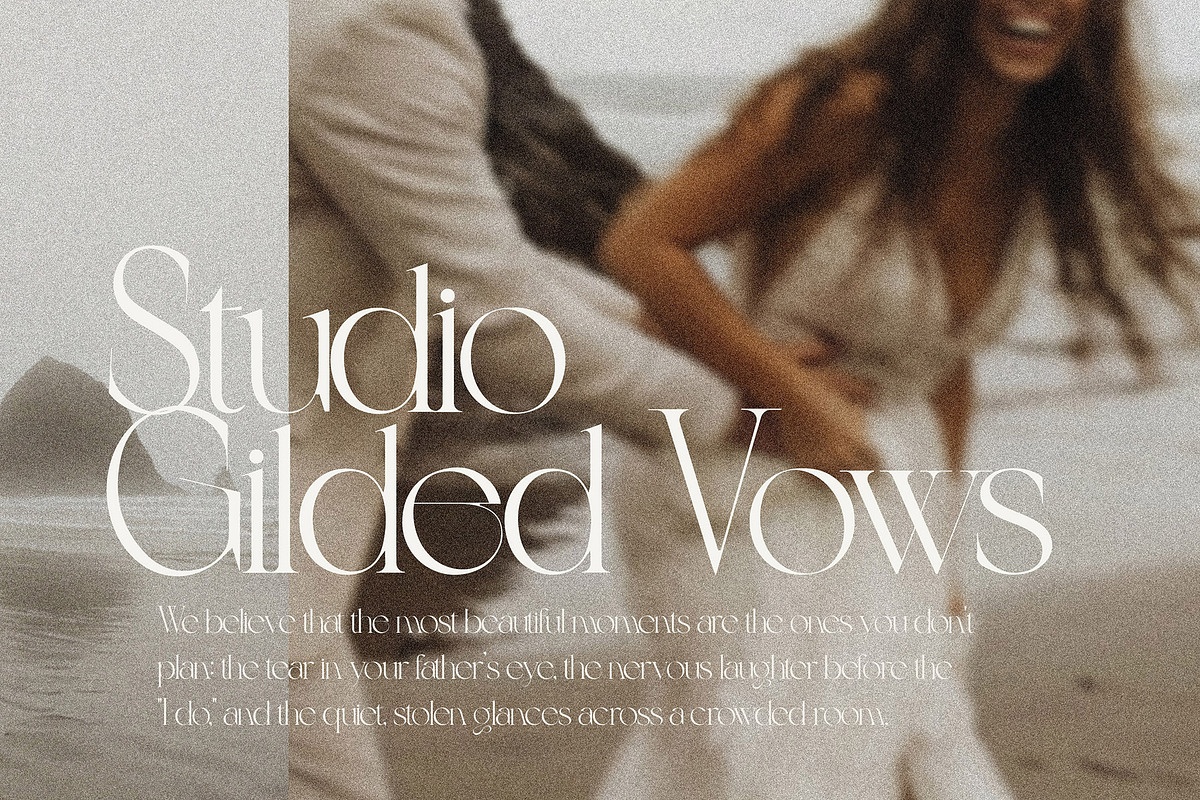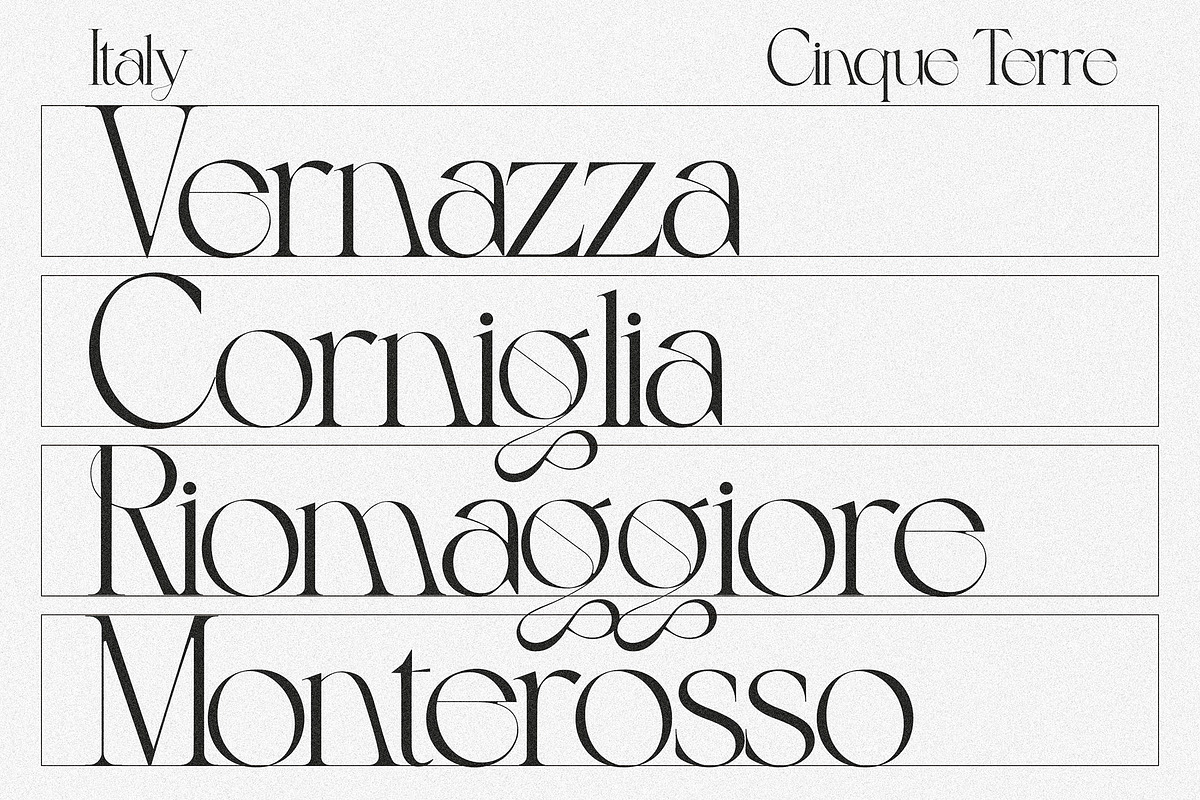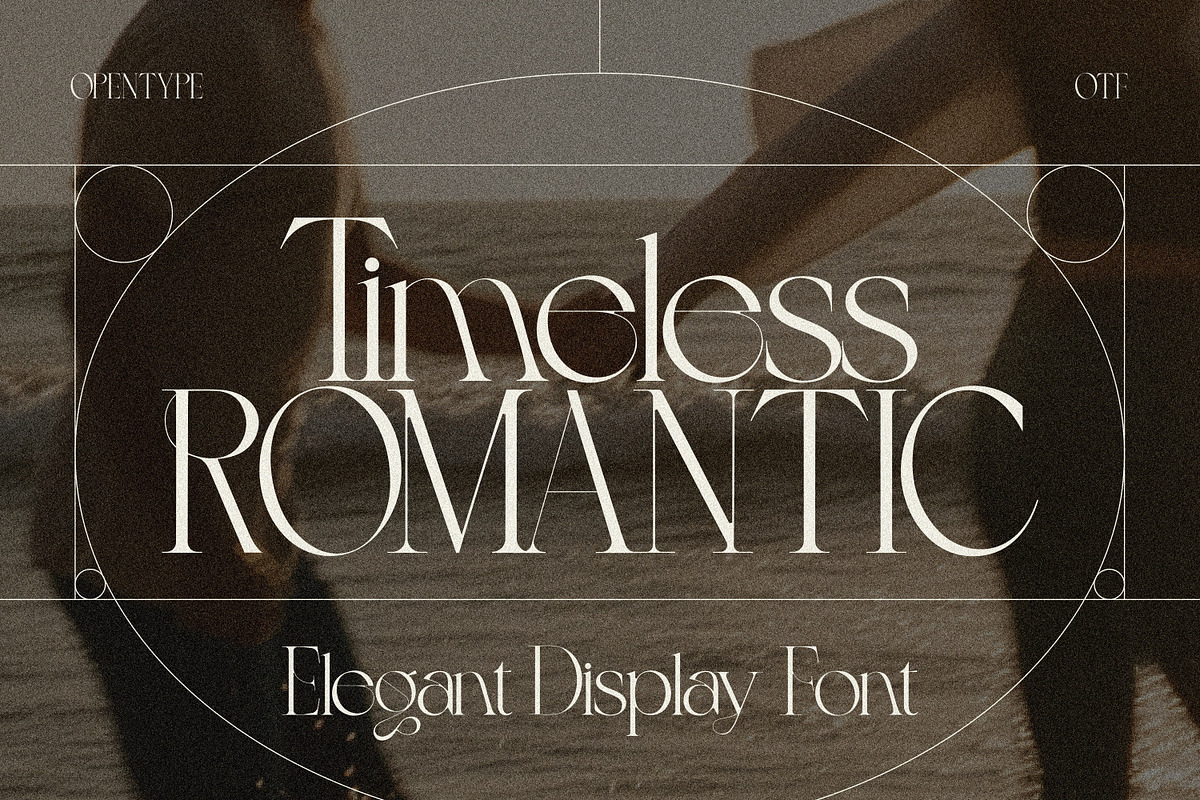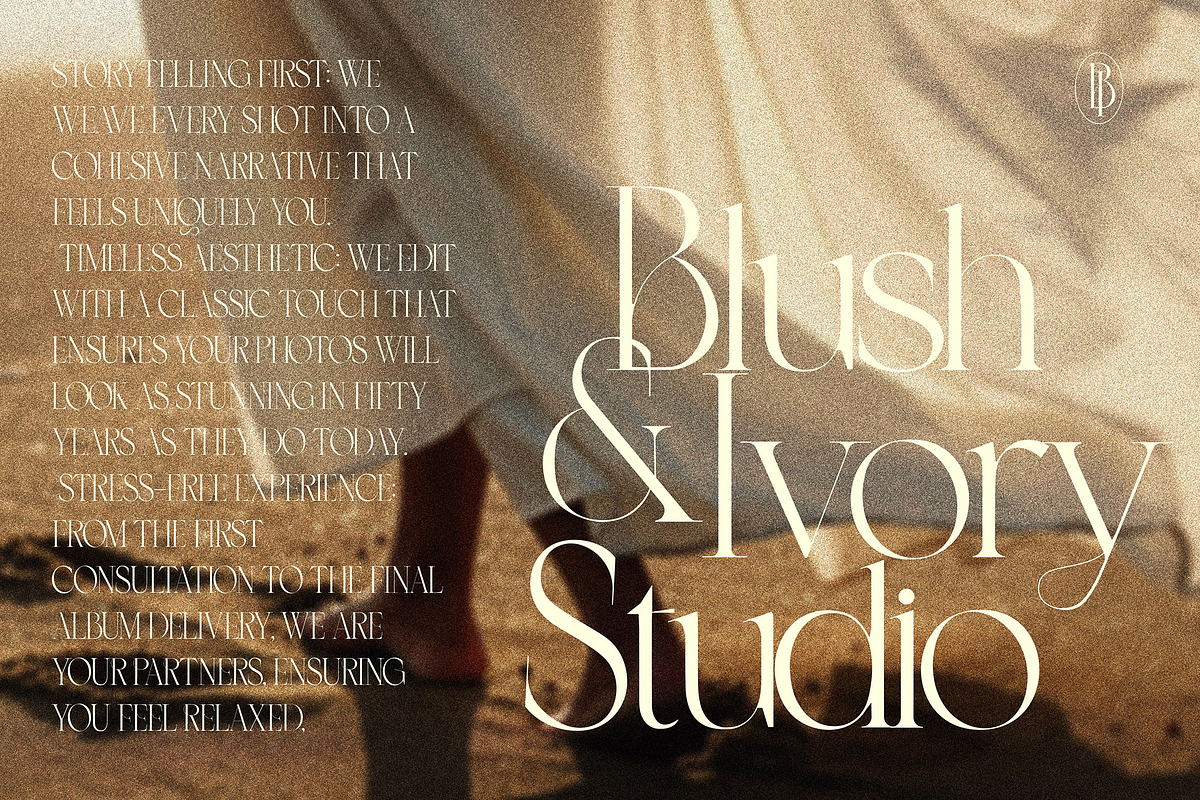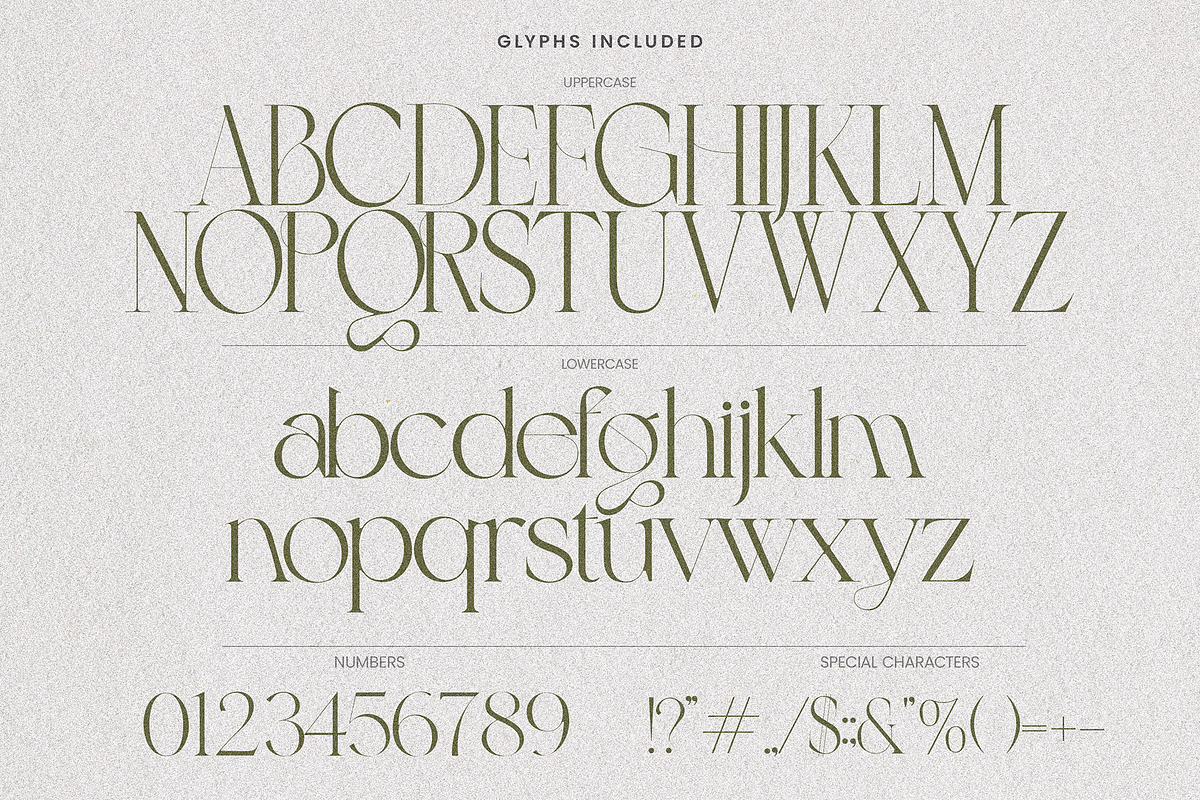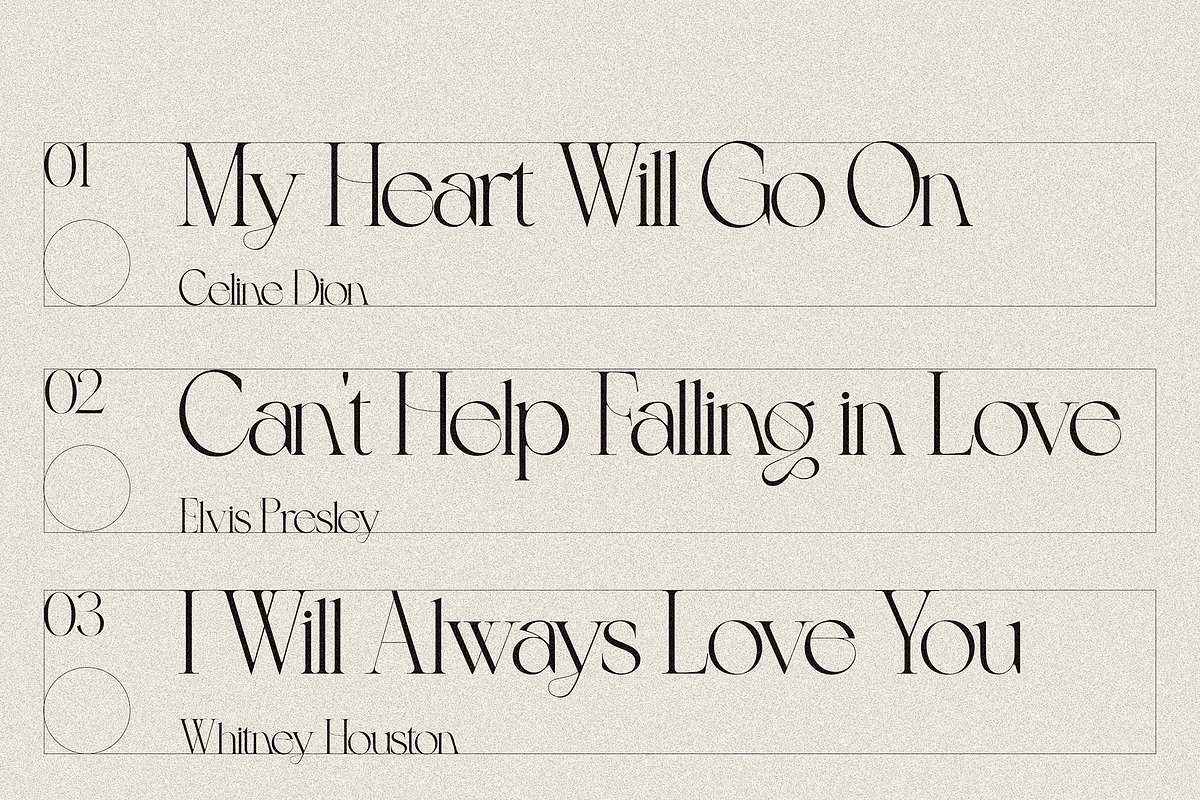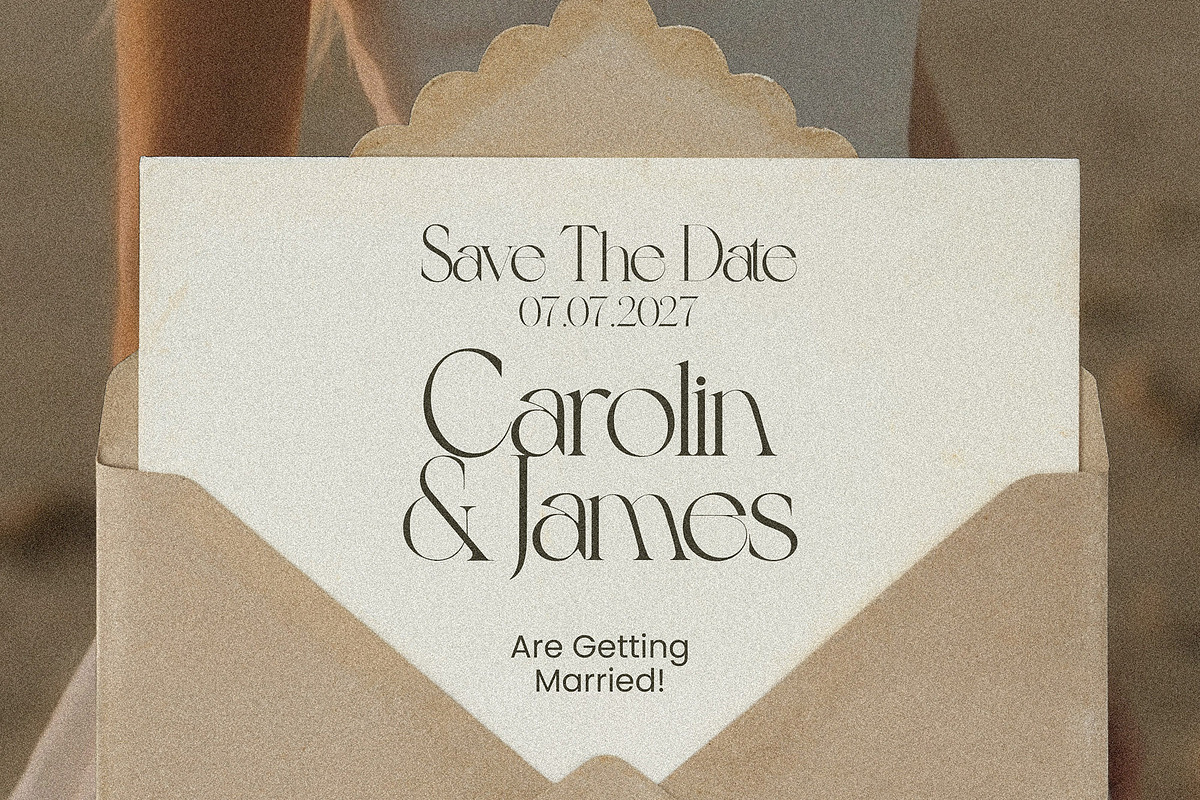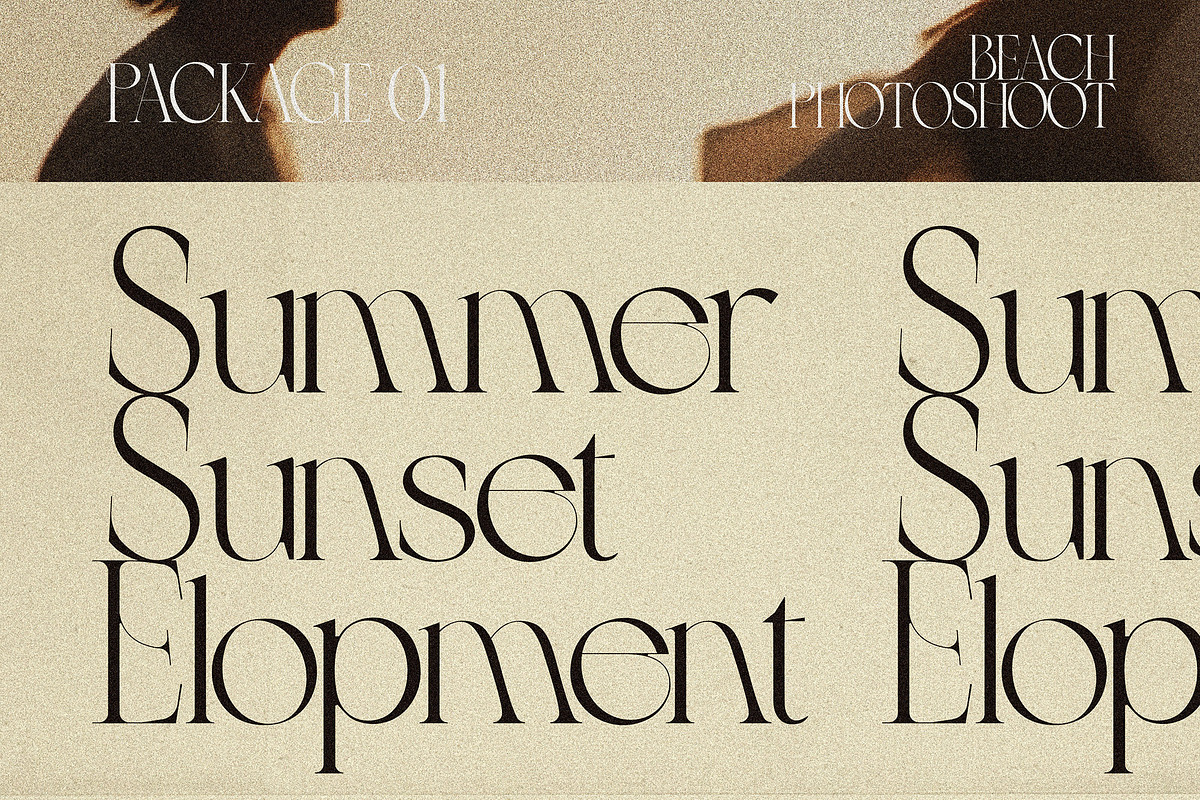
Timeless Romantic-Serif Wedding Font
Timeless Romantic is a sophisticated display serif that marries classic nostalgia with modern editorial flair. Designed for those who seek a balance of high-fashion aesthetics and romantic charm, this font features high-contrast strokes and unique fluid shapes that make every word look like a custom piece of art.
Whether you are designing a high-end brand identity or a dreamy wedding suite, Timeless Romantic provides that "expensive" look effortlessly.
This Font Is Perfect For:
- Branding & Logos — luxury brands, beauty lines, fashion labels, jewelry businesses
- Wedding Stationery — invitations, save-the-dates, menus, place cards
- Editorial & Magazine Layouts — headlines, pull quotes, cover titles
- Social Media Graphics — Instagram posts, Pinterest pins, story templates
- Packaging Design — perfume, cosmetics, wine labels, candle branding
- Book Covers & Titles — romance, poetry
- Website Headers — portfolio sites, luxury e-commerce, premium hotel brands